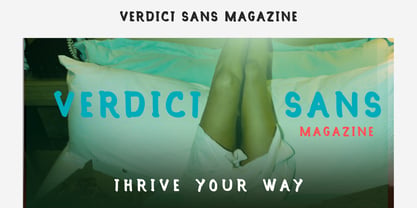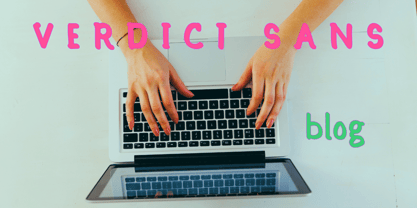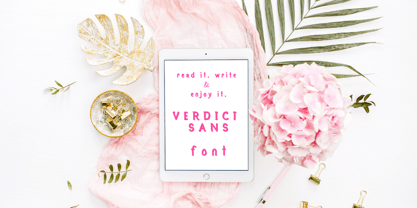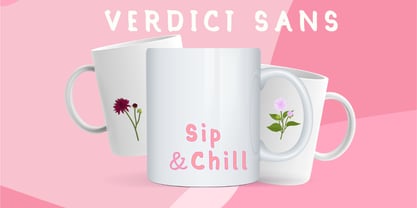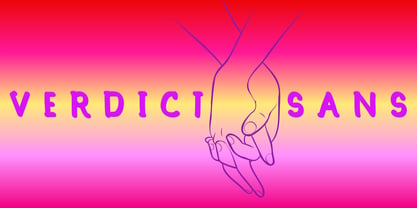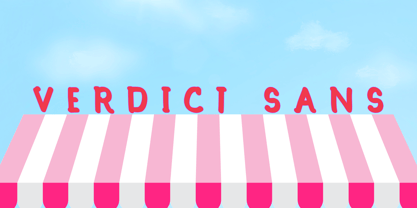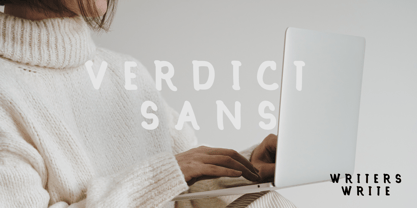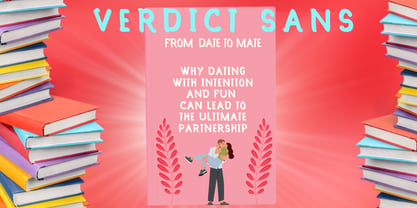
Verdict Sans
Verdict Sans is a confident and contemporary sans-serif font that radiates charm and clarity with a playful, polished twist. Whether it’s gracing the pages of a dating guide, decorating a coffee mug, or giving voice to a blog or magazine, this typeface speaks with purpose—and personality.
Crafted for brands that want to feel both smart and approachable, it’s perfect for editorial spreads, self-help covers, relationship books, lifestyle merch, and feminine-forward campaigns. From bold headlines to heartfelt quotes, Verdict Sans brings the kind of visual charisma that sells, connects, and lingers.
Self-Help Covers
Feminine Branding
Online Editorials
Dating + Relationship Brands
Modern Blog Design
Journaling Brands
Merch, Packaging, & Stationery
Email Campaigns & Course Slides
Pop Culture Quotes
Personalized Gifts